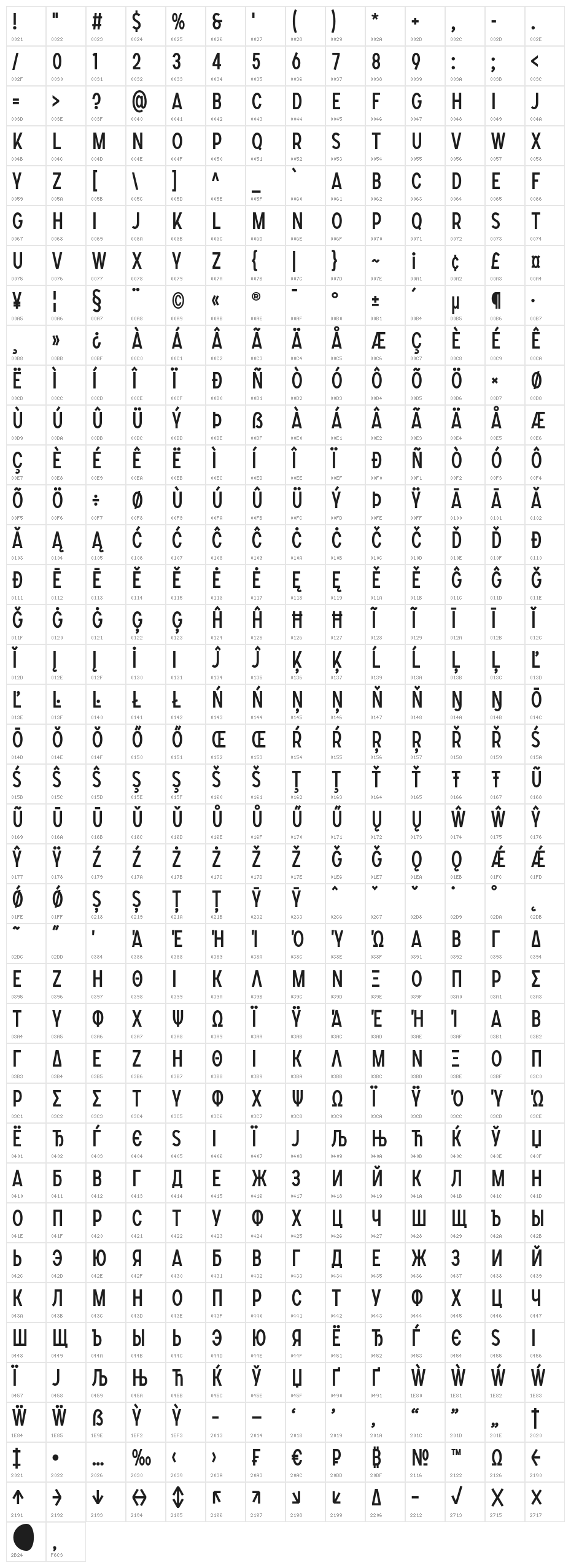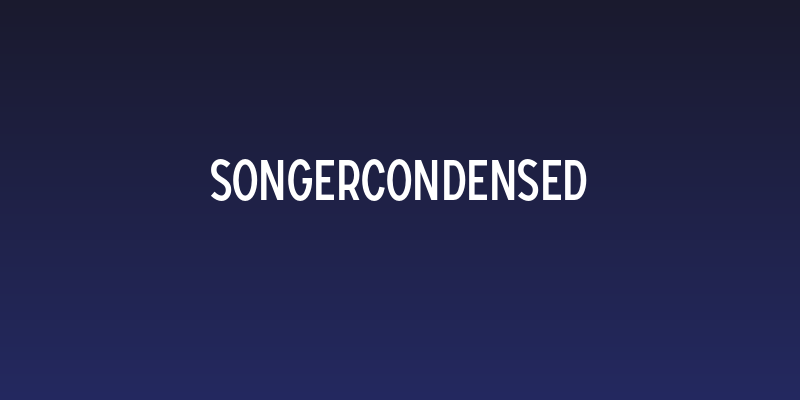
SONGERCondensed Font
SONGERCondensed Description
This typeface features a bold and condensed sans-serif style, characterized by its clean and modern appearance. The letters are uniformly thick, providing a strong and impactful presence. The uppercase and lowercase letters maintain a consistent height, contributing to a cohesive look. The numerals and special characters are designed to match the boldness of the alphabet, ensuring readability and uniformity across all characters. The condensed nature of the font allows for efficient use of space, making it suitable for headlines and titles where impact is essential. The overall design is straightforward and functional, with no unnecessary embellishments, emphasizing clarity and legibility.
| Proposed Projects | Ideal for use in headlines, posters, advertising, and branding projects where a strong and modern impression is desired. |